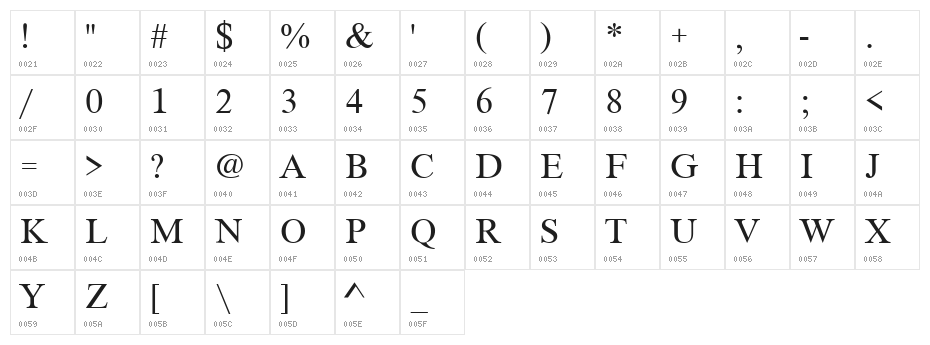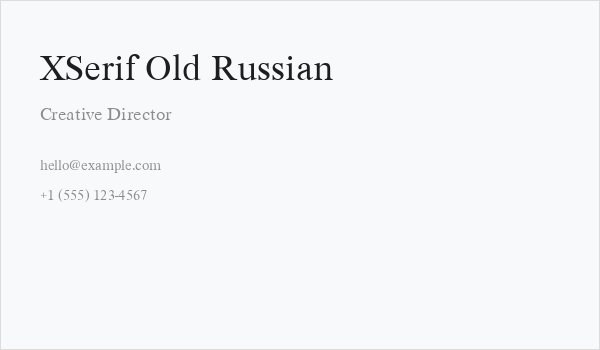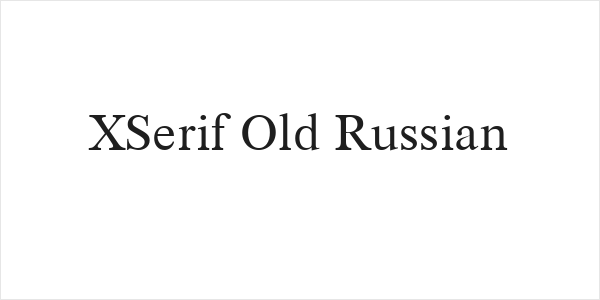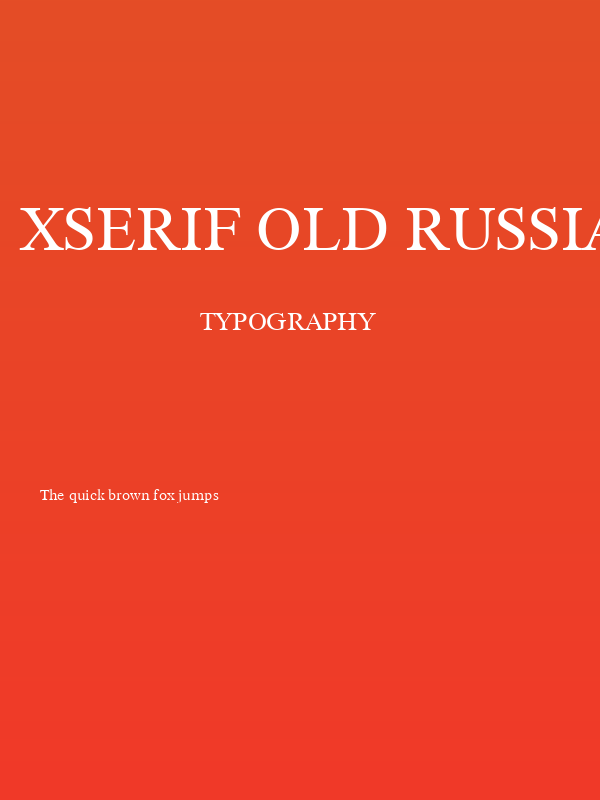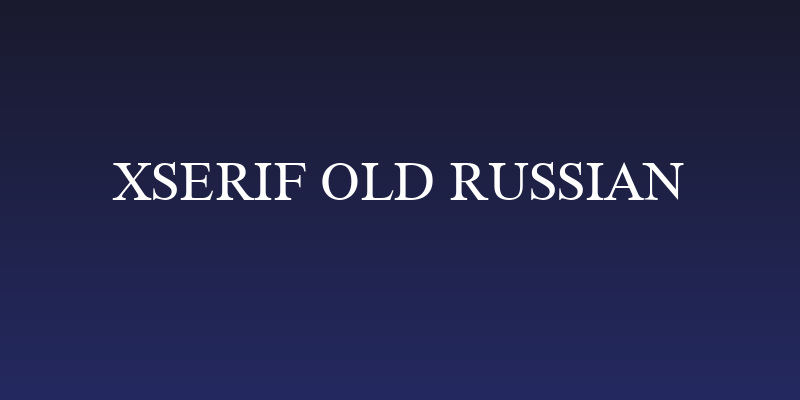
XSerif Old Russian Font
XSerif Old Russian Description
This font features a classic serif style with a distinct old-world charm reminiscent of historical Russian typography. The characters are elegantly crafted with pronounced serifs that add a touch of sophistication and tradition. The uppercase letters are bold and commanding, while the lowercase letters maintain a graceful flow. The numerals are clear and well-defined, making them easily readable. Special characters are designed with the same attention to detail, ensuring consistency across the entire typeface. This font is ideal for projects that require a touch of vintage elegance and historical depth.